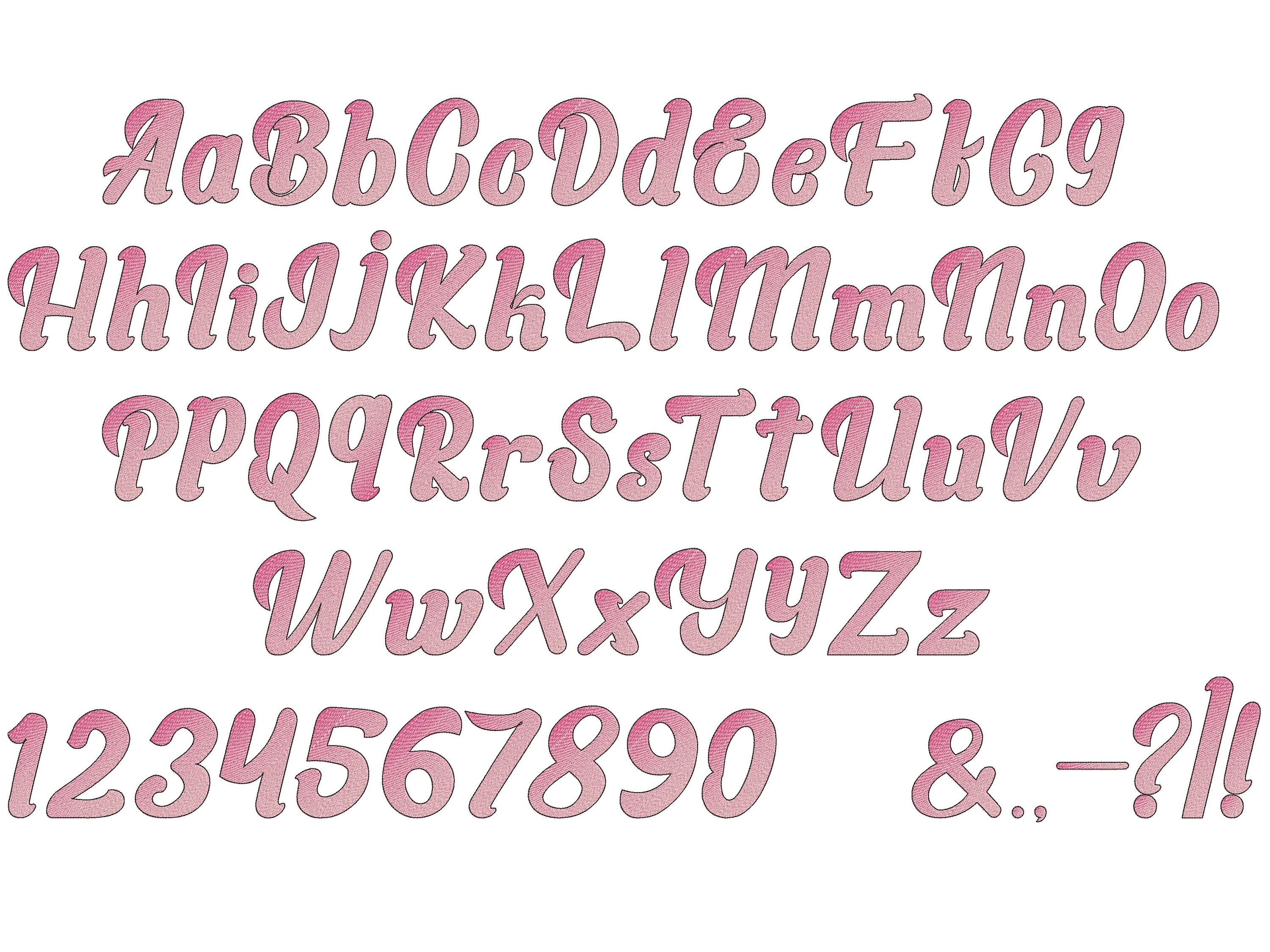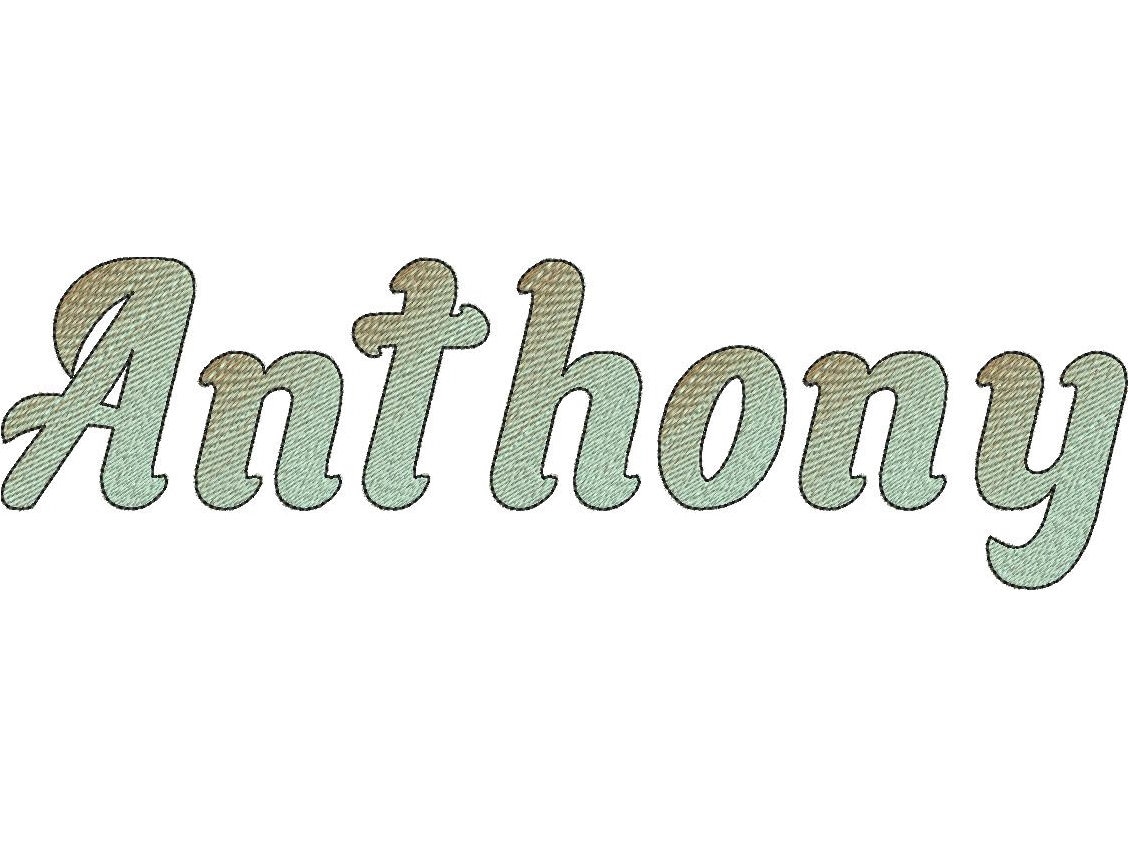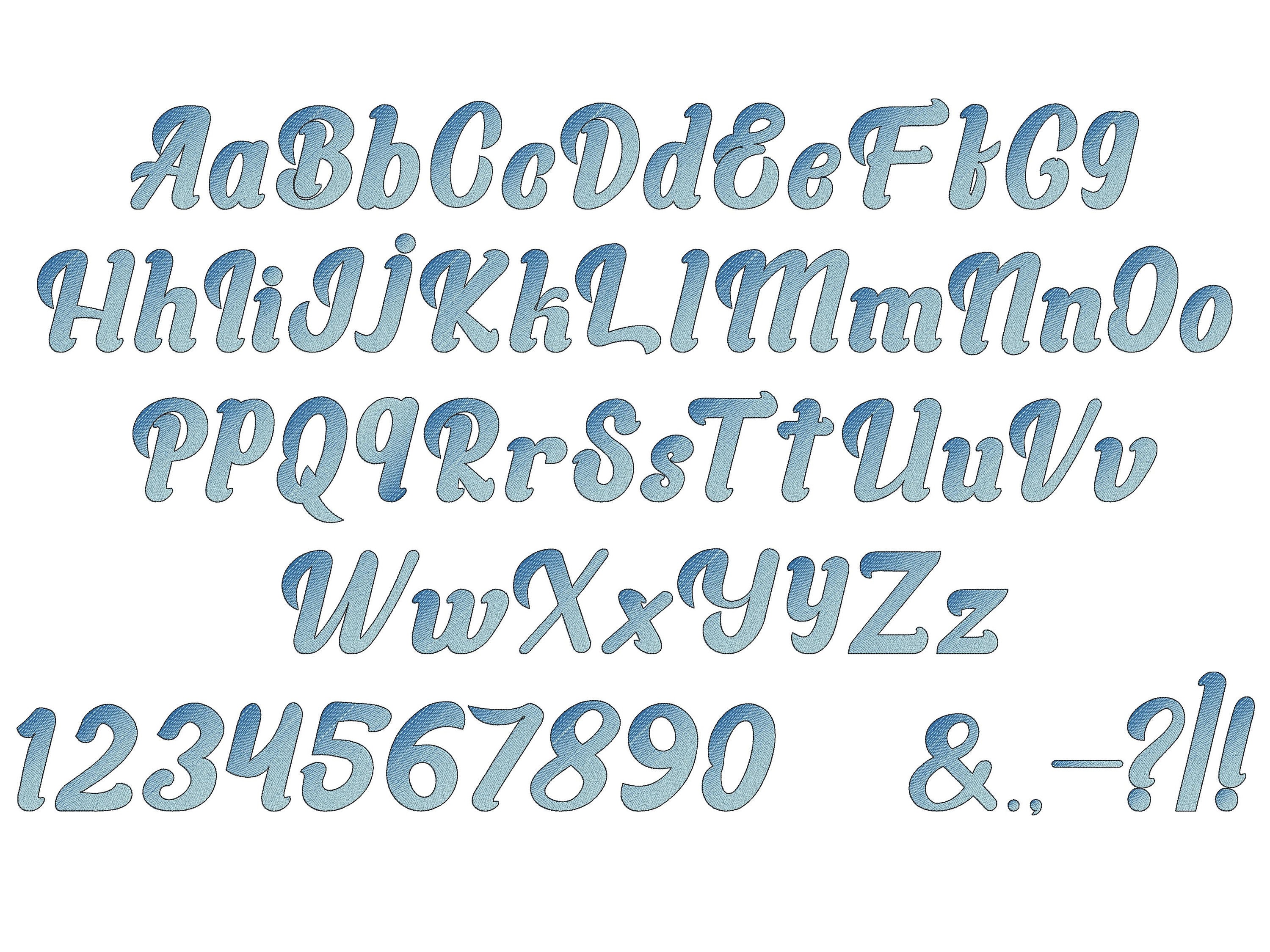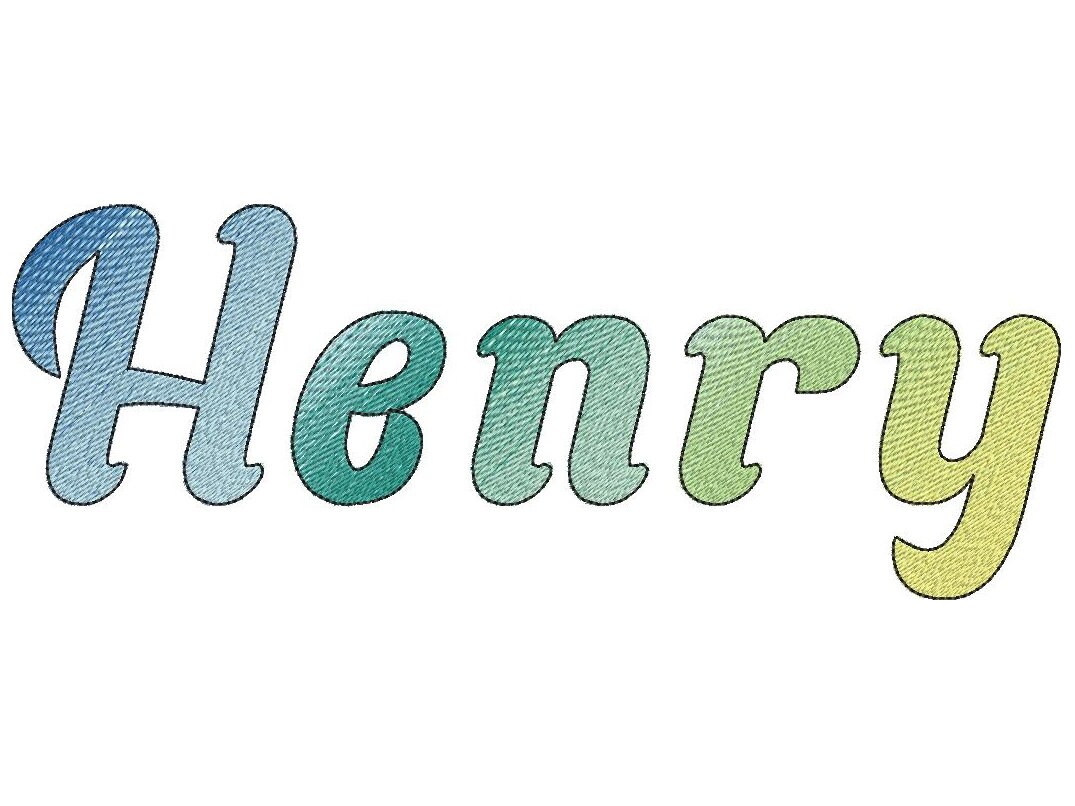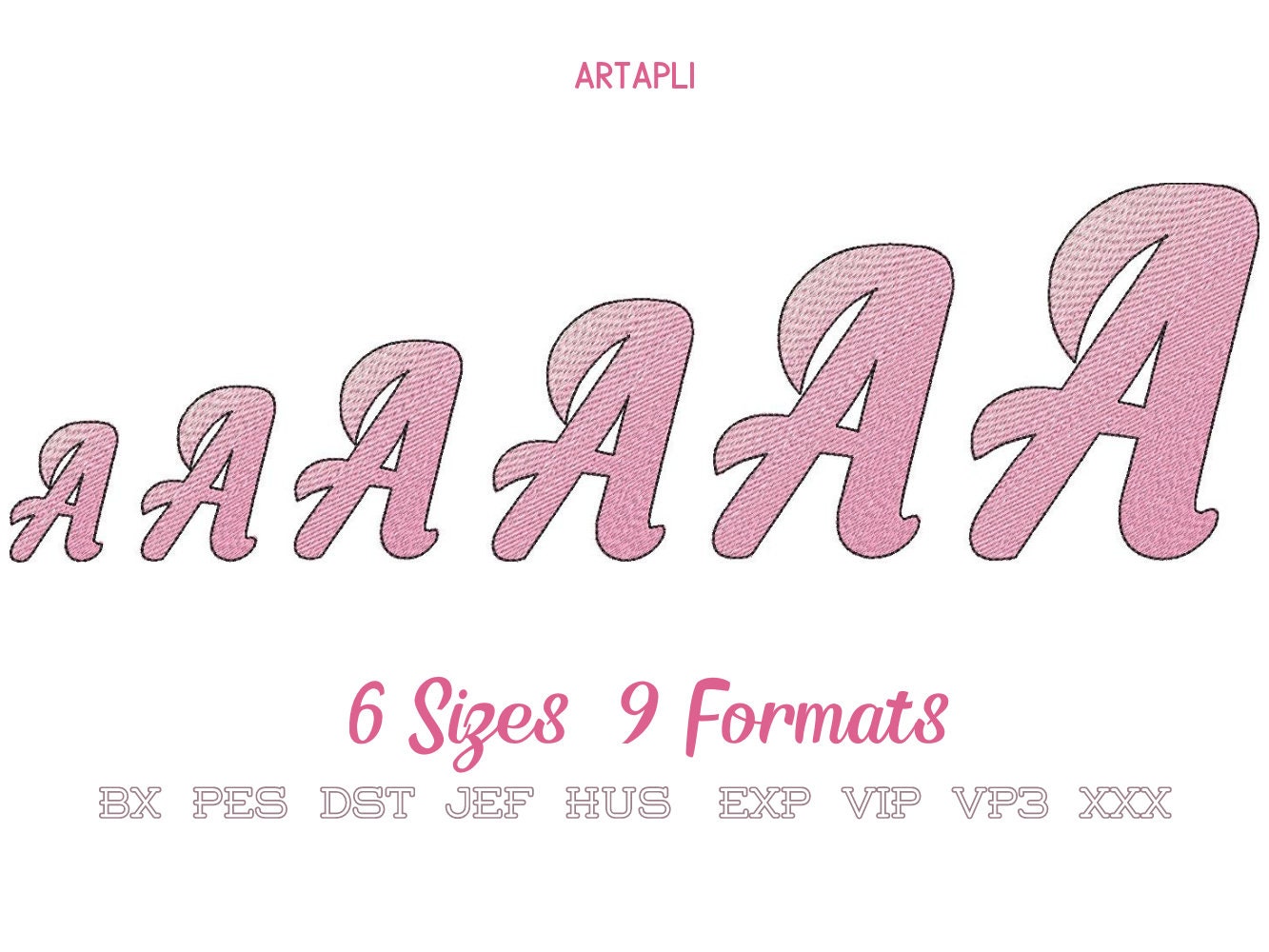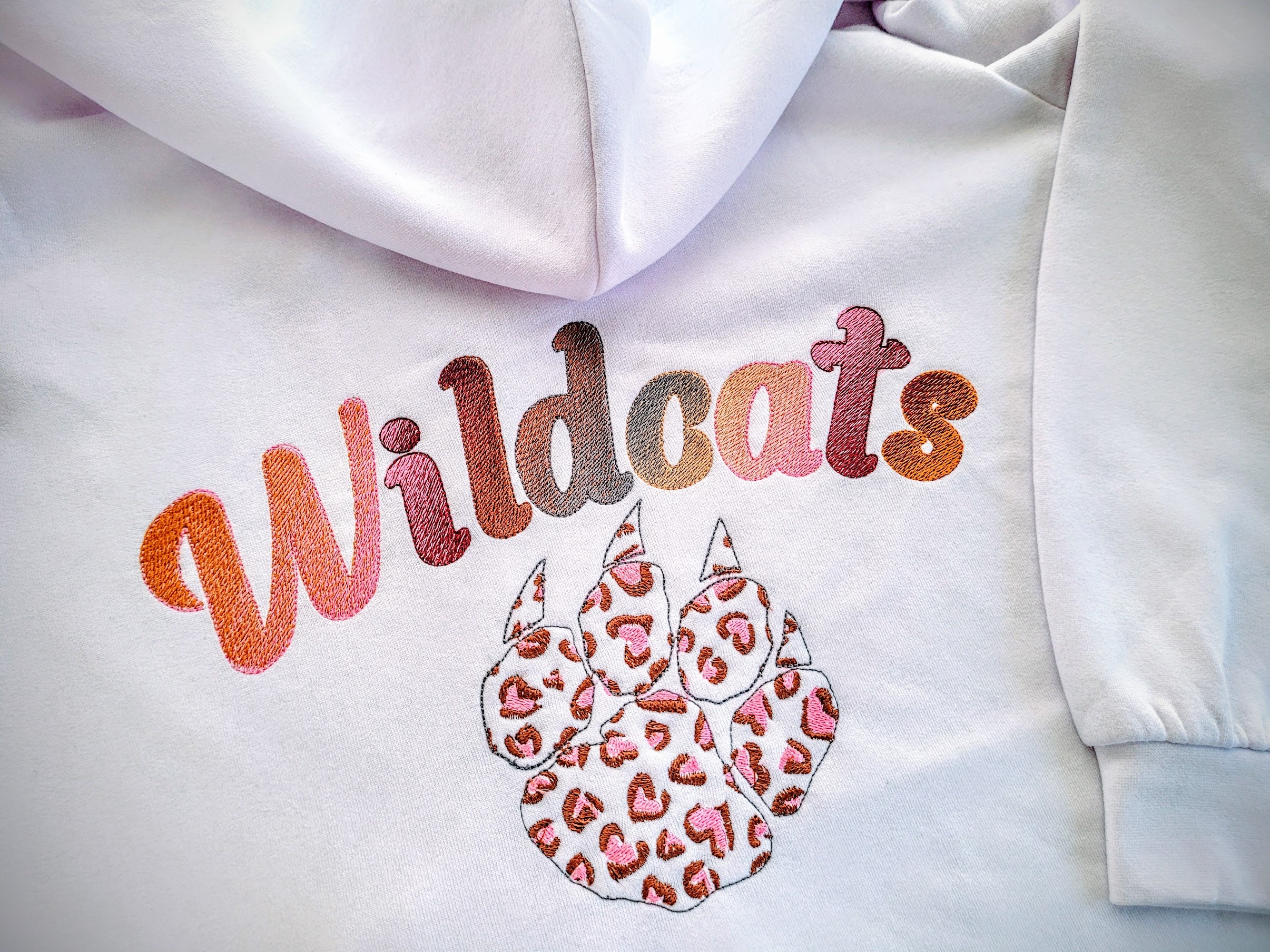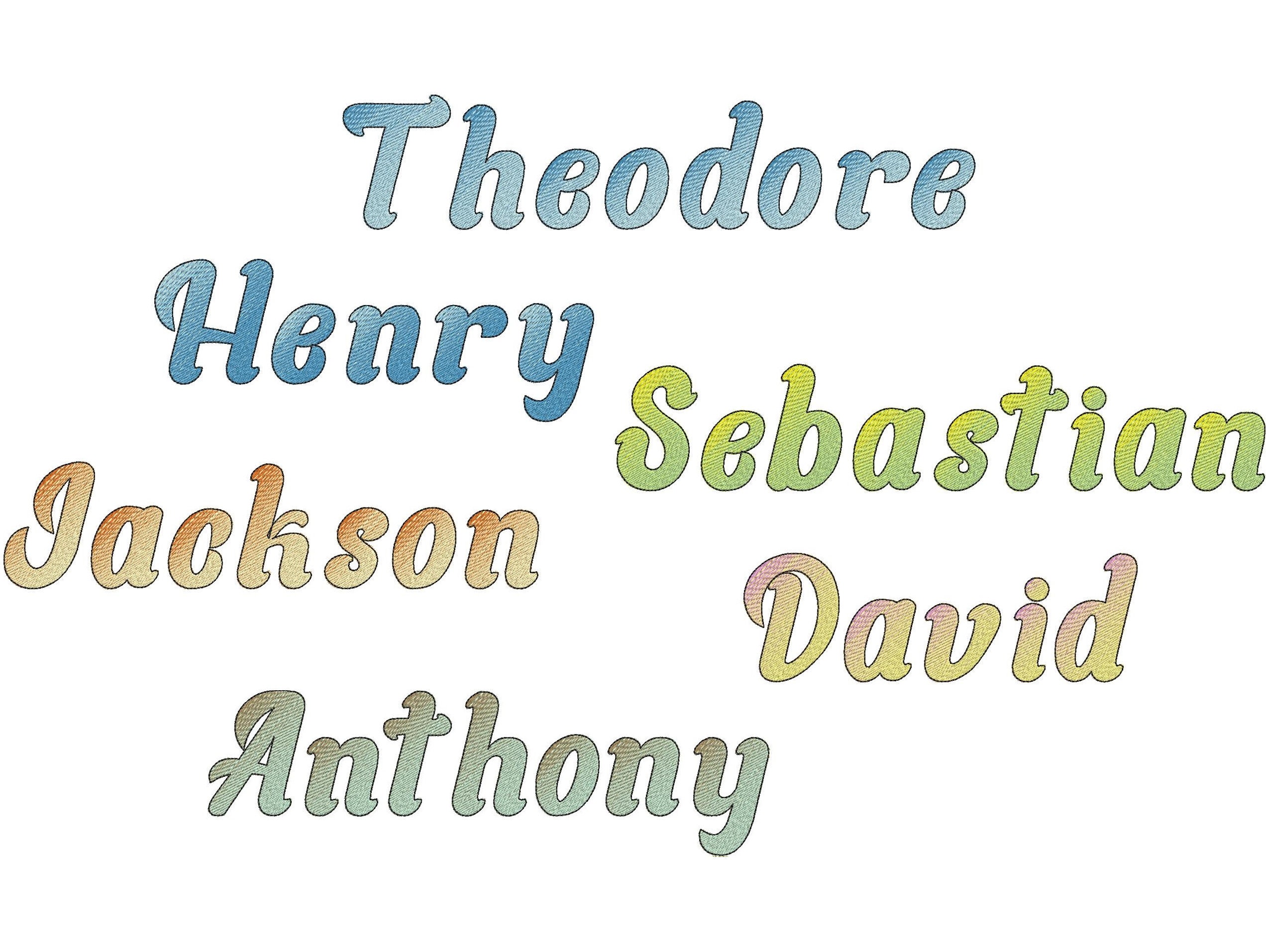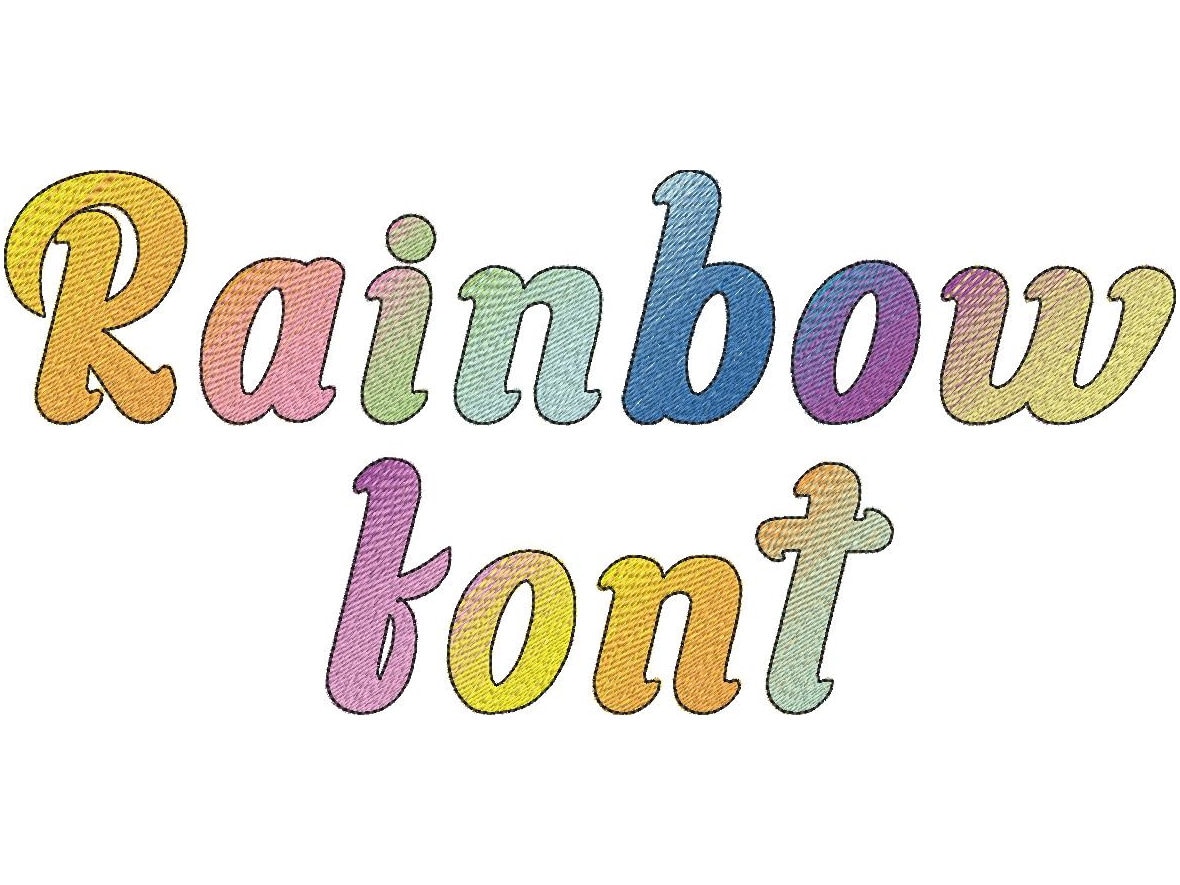
Rainbow Iridescent 2 color gradient FONT monogram alphabet machine embroidery designs ombre script kids font BX included, NO special thread!
No special thread is required!
It looks incredible! For this font, regular solid color embroidery threads are used (not multi-colored).
The letters are stitched from usual solid color threads, just used two colors per letter to make a nice iridescent effect!
No special thread required. The pattern creates this amazing effect all by itself. Iridescent comes thanks to the design, it has 2 colors. Start stitching on one side of the letter, then change the thread and finish stitching the other side of the letter.
Included: lowercase and uppercase letters, numbers and punctuation & . , - ? / !